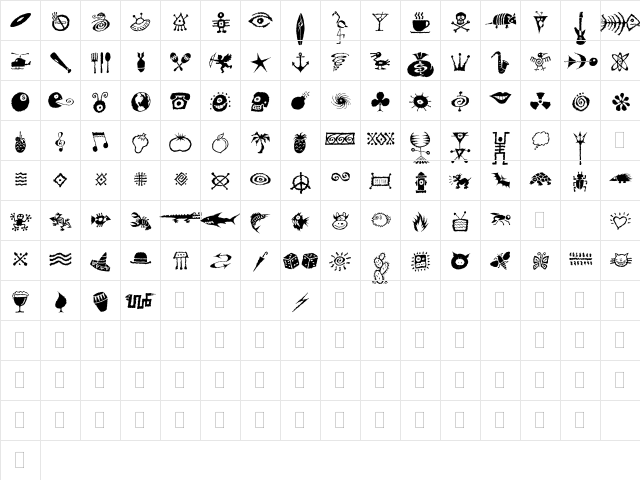
DF Mo Funky Fresh Symbols Regular
| Foundry | International Typeface Corporation |
| Designer | David Sagorski |
Design Context for DF Mo Funky Fresh Symbols Typeface
DF Mo Funky Fresh Symbols trades formality for fun, with bouncy, characterful letterforms that bring warmth and energy to any project.
Font Pairing: Pairs well with a rounded or humanist sans for body copy, maintaining the friendly tone without relying on DF Mo Funky Fresh Symbols to carry extended reading.
Pro Tip: Avoid using DF Mo Funky Fresh Symbols for long passages of text — it works best for headlines, labels, and short calls to action.